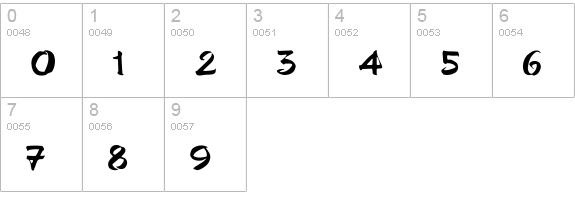
RSPoloSemiscript Font Details
RSPoloSemiscript font is a unique and stylish typeface that combines classic elegance with modern flair. Its semi-script design adds a touch of sophistication to any project, making it perfect for invitations, logos, and more. The flowing lines and graceful curves of this font will elevate your designs and give them a touch of class. The best part is that RSPoloSemiscript font is available for free download at FontsMarket.com, allowing you to add this beautiful typeface to your collection without any cost. Whether you're a designer looking for a new font to enhance your work or simply a font enthusiast searching for something special, RSPoloSemiscript font is sure to impress with its timeless charm and versatility. Download it today and see the difference it can make in your projects!